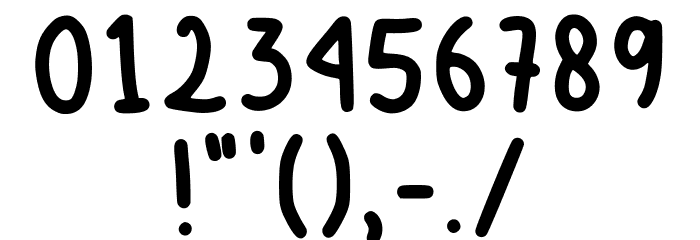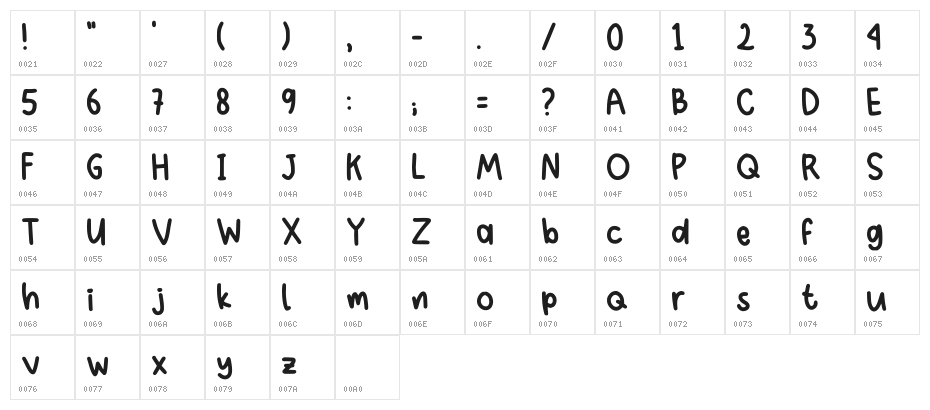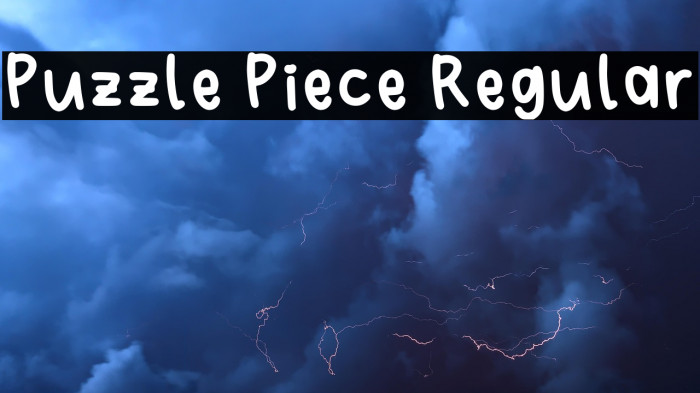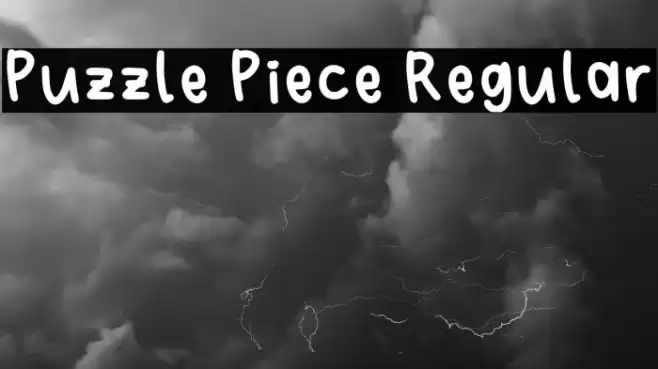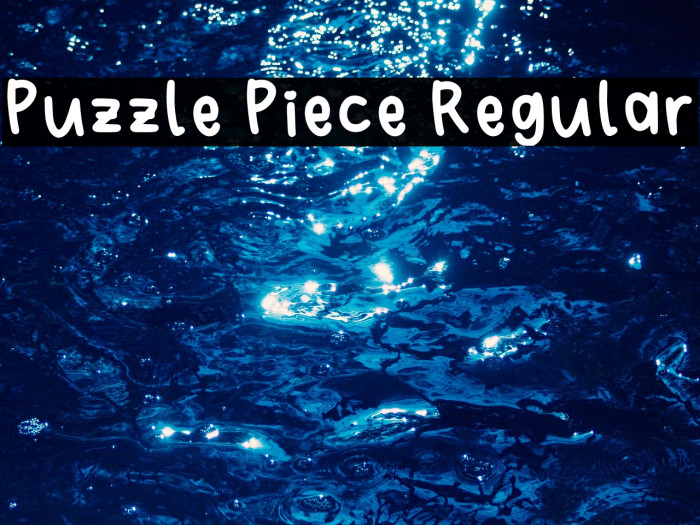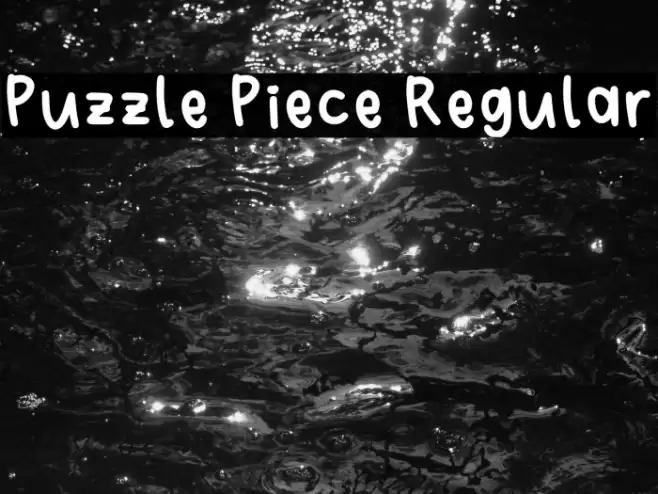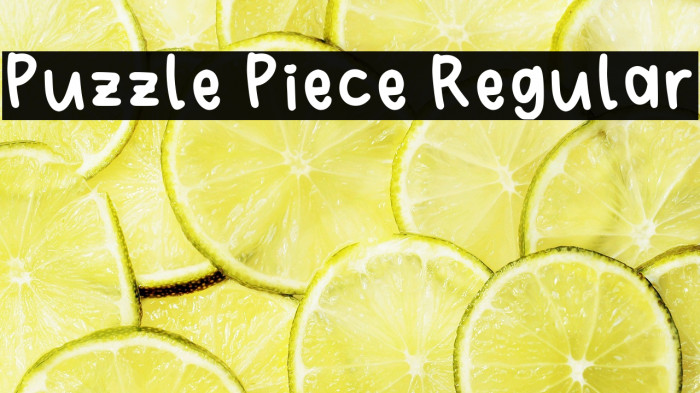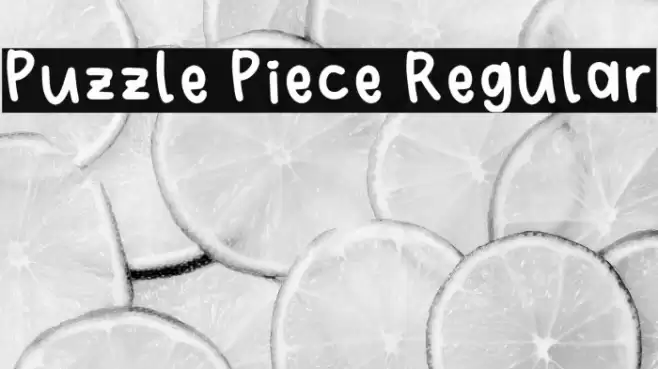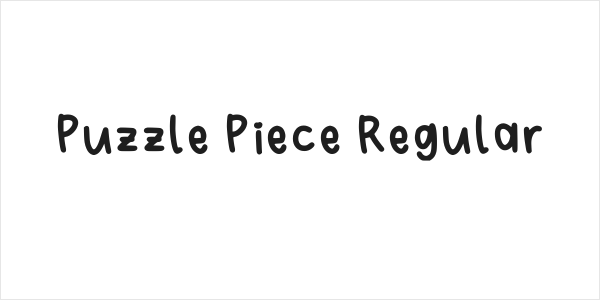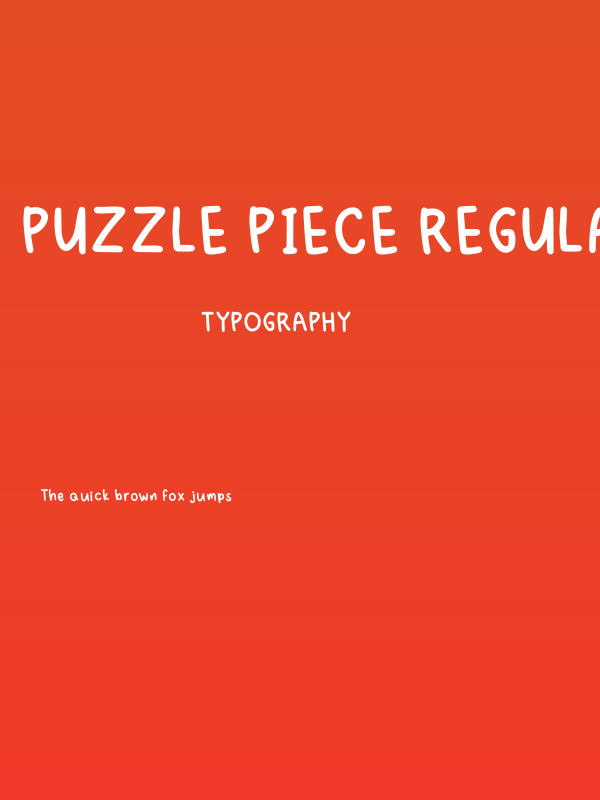
Puzzle Piece Regular Font
Puzzle Piece Regular Description
This playful and whimsical font features rounded, bold characters with a hand-drawn appearance. The letters have a consistent stroke width, giving them a uniform look while maintaining a casual, friendly vibe. The characters are slightly irregular, adding to the charm and making it ideal for projects that require a personal touch. The font includes both uppercase and lowercase letters, numerals, and a selection of punctuation marks. Its informal style makes it perfect for children's books, playful branding, or any design that aims to convey warmth and approachability.
| Proposed Projects | Ideal for children's books, playful branding, greeting cards, and informal invitations. |